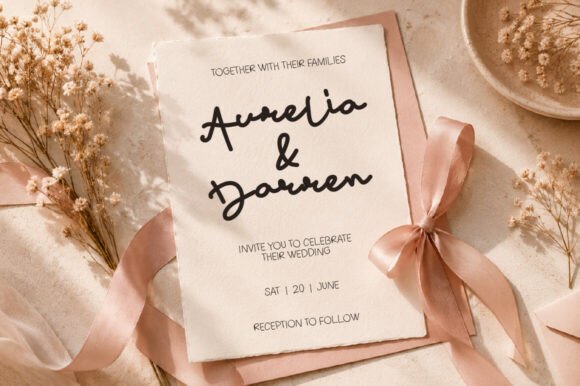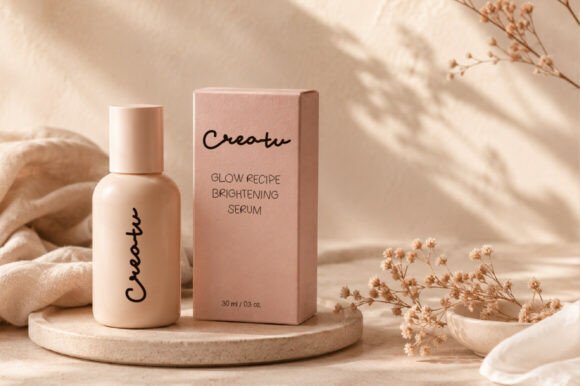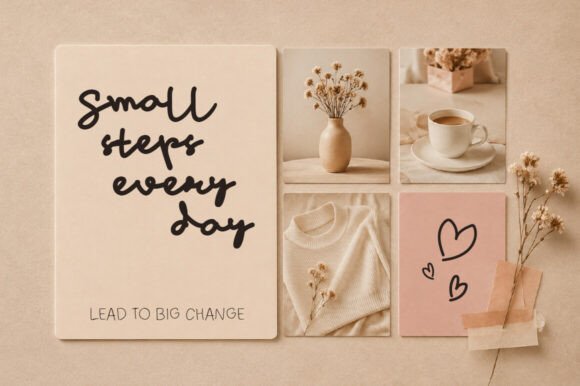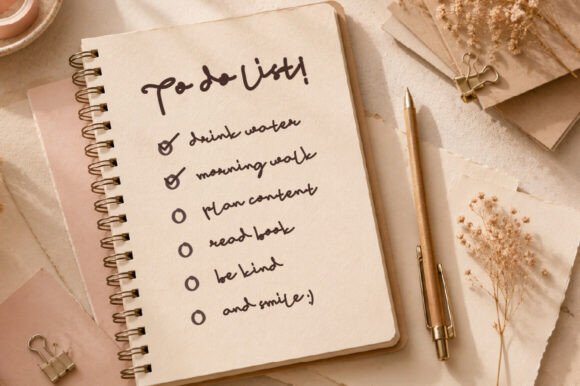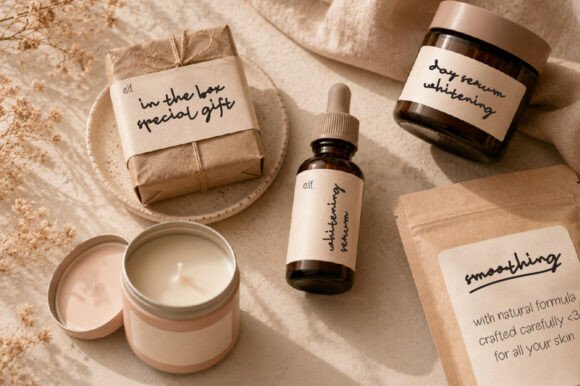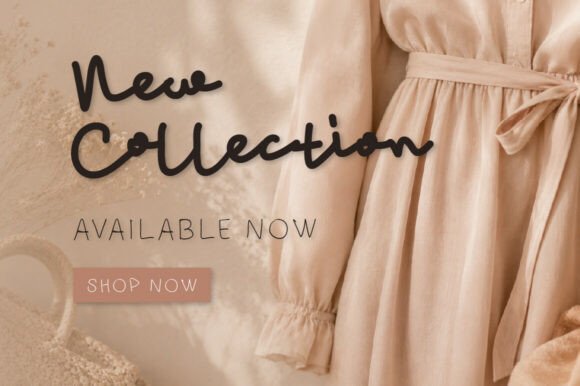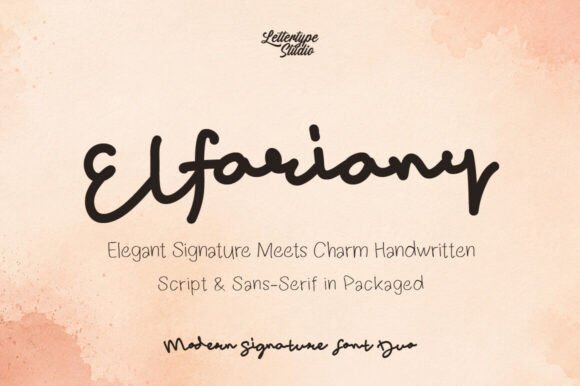
Introducing Elfariany Font: The Perfect Duo for Modern Branding
In the world of typography, finding the right font can make all the difference in creating a lasting impression. For designers and crafters looking for a modern, yet personal touch, Elfariany Font is a game-changer. This font duo combines an expressive signature script with a clean monoline handwritten sans, offering the perfect balance between elegance and casual authenticity.
The Elfariany Font Duo: A Match Made in Typography Heaven
Elfariany Font is a thoughtfully designed font duo that pairs a beautiful, flowing script with a clean and modern sans. The script style boasts a bold, handwritten energy that flows naturally, evoking emotions and adding a personal touch to any design. On the other hand, the sans companion provides a clean, friendly, and highly usable alternative, perfect for keeping layouts organized and easy to read.
Designing with Elfariany Font: Endless Possibilities
One of the most significant advantages of Elfariany Font is its versatility. This font duo is perfect for a wide range of design applications, including branding, packaging, social media, wedding design, and lifestyle content. Whether you’re creating a logo, business card, or social media post, Elfariany Font provides the perfect typography solution.
Branding and Packaging
For businesses looking to create a strong brand identity, Elfariany Font is an excellent choice. The script style adds a touch of elegance and sophistication, while the sans companion provides a clean and modern contrast. This font duo is perfect for creating logos, business cards, brochures, and product packaging that stands out.
Social Media and Lifestyle Content
In today’s digital age, social media and lifestyle content play a crucial role in engaging with audiences. Elfariany Font is designed to help creators produce stunning visuals that capture attention and convey personality. Whether you’re creating Instagram posts, YouTube thumbnails, or blog headers, this font duo provides the perfect typography solution.
Wedding Design and Events
For wedding designers and event planners, Elfariany Font is a dream come true. The script style adds a romantic and whimsical touch, while the sans companion provides a clean and modern contrast. This font duo is perfect for creating wedding invitations, save-the-date cards, and event branding materials.
Why Choose Elfariany Font?
So, what sets Elfariany Font apart from other font duos on the market? Here are just a few reasons why designers and crafters love this font:
• Unique and Expressive: Elfariany Font offers a unique and expressive typography solution that adds personality to any design.
• Versatile: This font duo is perfect for a wide range of design applications, from branding and packaging to social media and wedding design.
• Elegant and Casual: Elfariany Font strikes the perfect balance between elegance and casual authenticity, making it suitable for various design contexts.
• Easy to Read: The sans companion provides a clean and highly usable alternative, ensuring that layouts remain easy to read and navigate.
In conclusion, Elfariany Font is a modern handwritten font duo that offers a perfect blend of elegance and casual authenticity. With its expressive signature script and clean monoline handwritten sans, this font duo provides a versatile typography solution for designers and crafters. Whether you’re creating branding materials, social media content, or wedding design elements, Elfariany Font is the perfect choice for adding a personal touch to your designs.